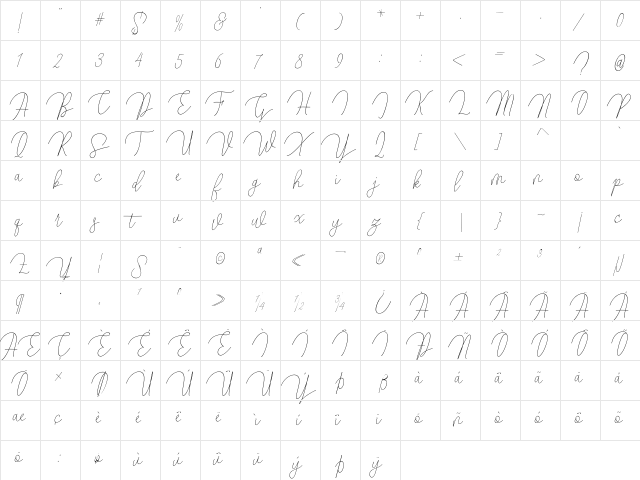
ButtyScript Regular
Design Context for ButtyScript Typeface
ButtyScript flows with the natural rhythm of handwritten lettering, making it ideal for designs that call for warmth and personal expression.
Font Pairing: Combine ButtyScript with a simple geometric sans for maximum contrast — the tension between flowing curves and clean structure is a classic typographic pairing.
Pro Tip: Use ButtyScript for short runs of text — names, titles, or taglines. Extended body copy in script faces tires the eye quickly.